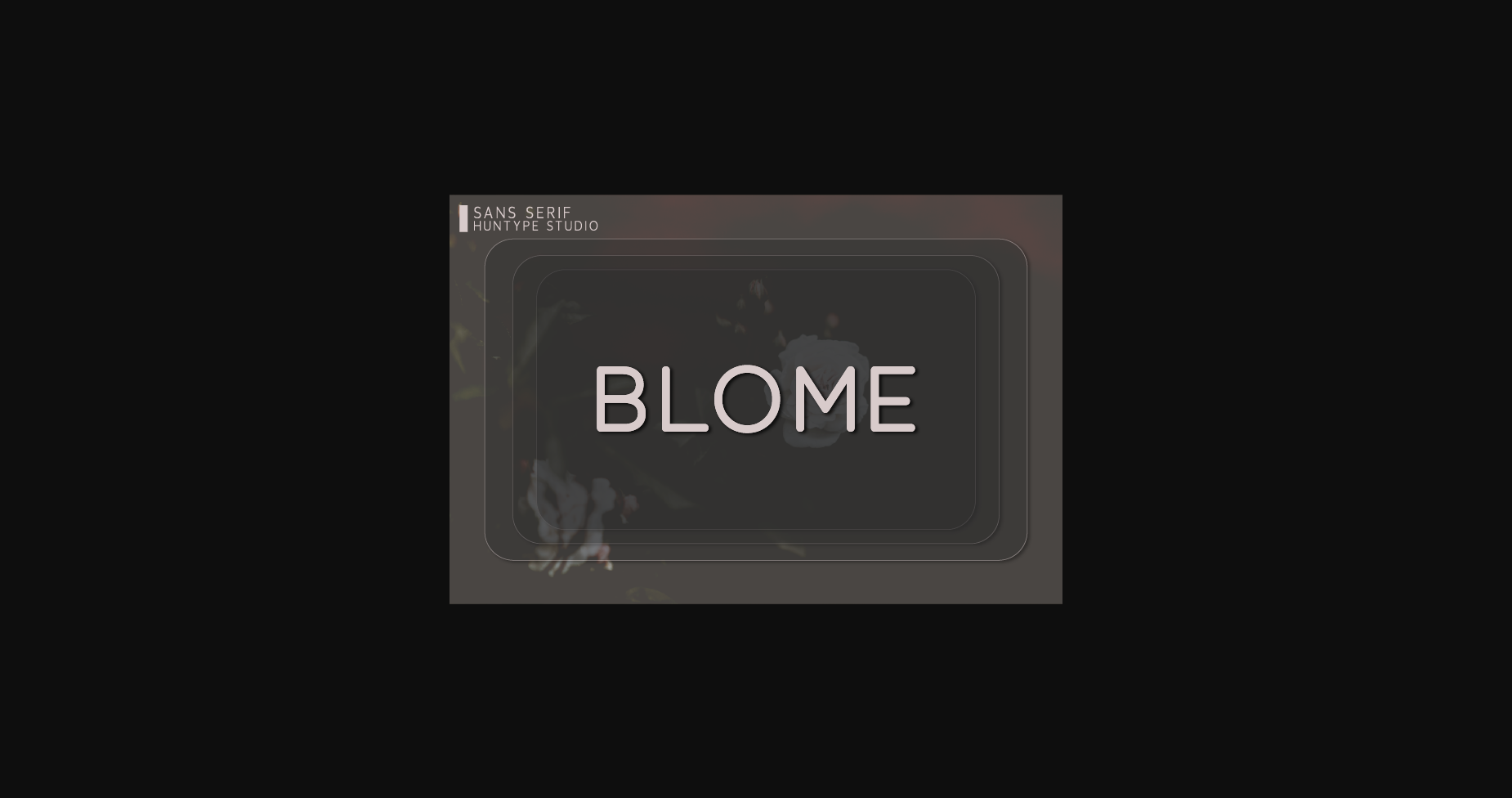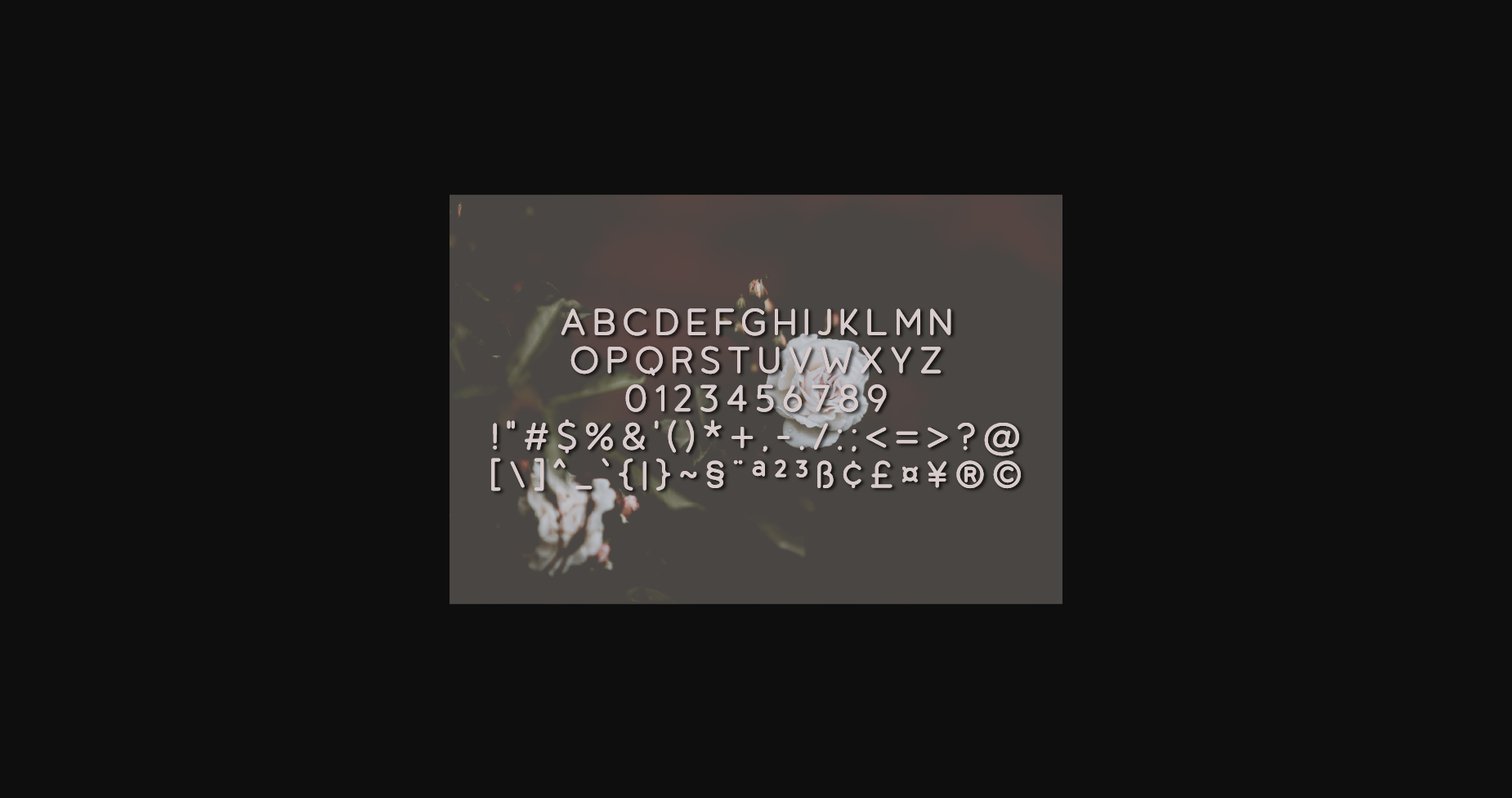
About Blome Font
Blome is a clean and simple sans serif font. With smooth and delicate lines, this font works beautifully for logos, branding, and web headings.